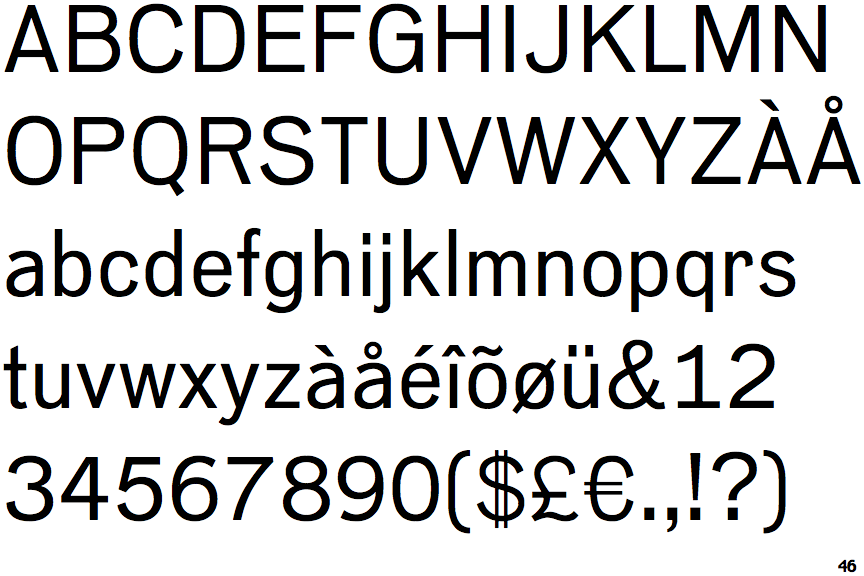
Web Dada Grotesk Is A Typeface Designed By Devalence For The Fabulous Exhibition, Dada, Which Took Place In 2005 At The Centre Pompidou In Paris.its Design Was Based On A Typeface.